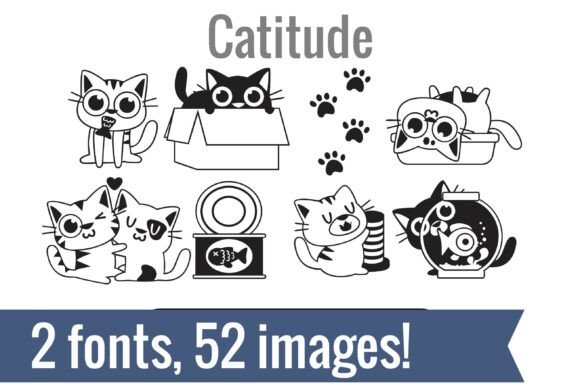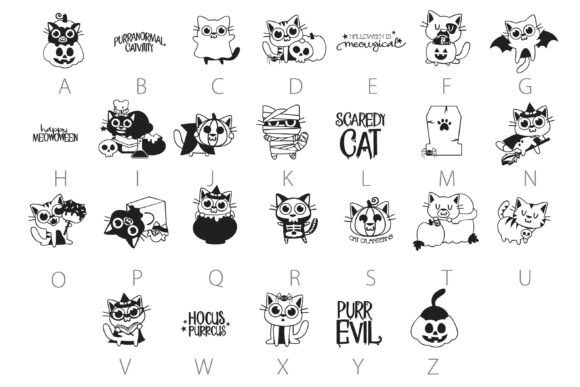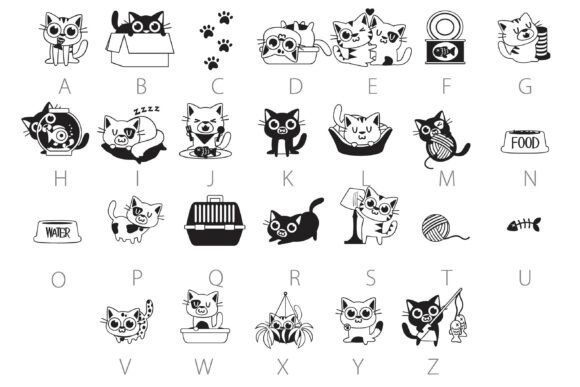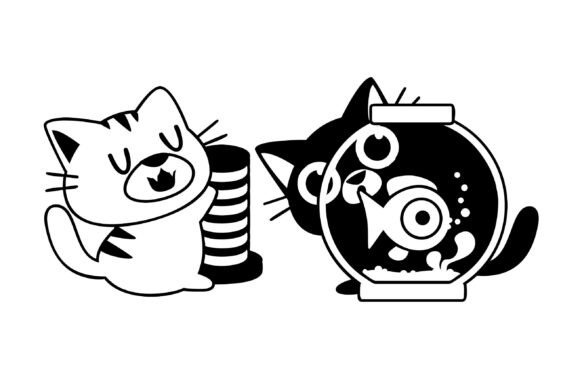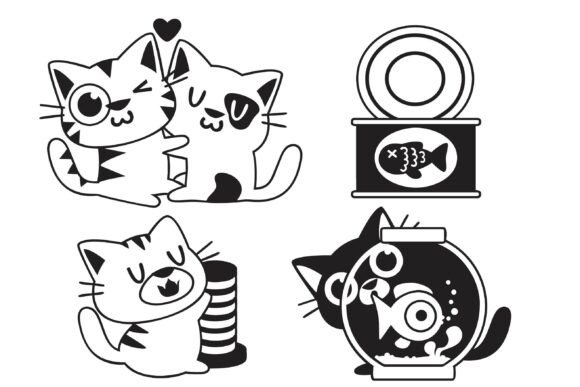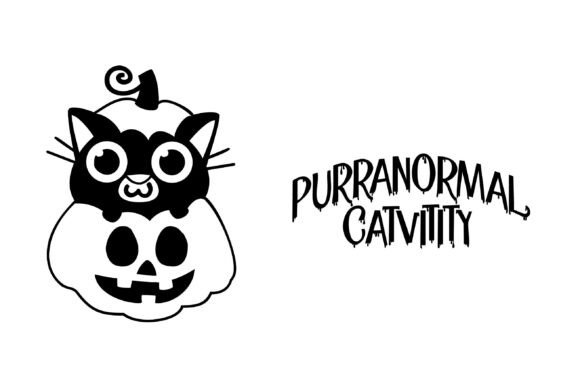
Unleash the Cuteness: Meet the Catitude Dingbats Font
As a designer, I’ve had my fair share of creative blocks. But one of the most frustrating moments was when I was working on a Halloween-themed project for a client, and I just couldn’t find the right font to match the spooky yet playful vibe. That was until I stumbled upon the Catitude Purrnormal dingbats font duo. This adorable font features 52 spooky and sassy cat illustrations that instantly elevated my design game. In this article, I’ll share my experience with the Catitude dingbats font, its features, and how to make the most of it in your designs.
What I Love About Catitude Dingbats Font
- ✨ Adorable illustrations: The font features 52 unique cat illustrations, ranging from ghostly kitties to bat-cats, pumpkin costumes, and witchy vibes.
- ✅ Versatility: The Catitude Purrnormal dingbats font duo is perfect for various design projects, including party invites, greeting cards, planner stickers, and fun Halloween crafts.
- 🔥 High-quality graphics: The font includes high-quality graphics designed to work beautifully together, ensuring a seamless design experience.
While the Catitude dingbats font is amazing, there are a few minor quirks to consider:
- 🤔 Learning curve: With 52 illustrations to explore, it may take some time to get familiar with the font’s capabilities and find the perfect illustration for your design.
- ⚠️ OpenType features: Some users may need to explore OpenType features, glyphs, or stylistic alternates to get the most out of the font.
The Story Behind Catitude Dingbats Font
The Catitude dingbats font was created with the intention of bringing a touch of paranormal flair to designers’ and crafters’ projects. The font’s creator wanted to capture the playful and spooky essence of Halloween, while also showcasing the adorable side of cats. The result is a unique font that’s both eerie and cute.